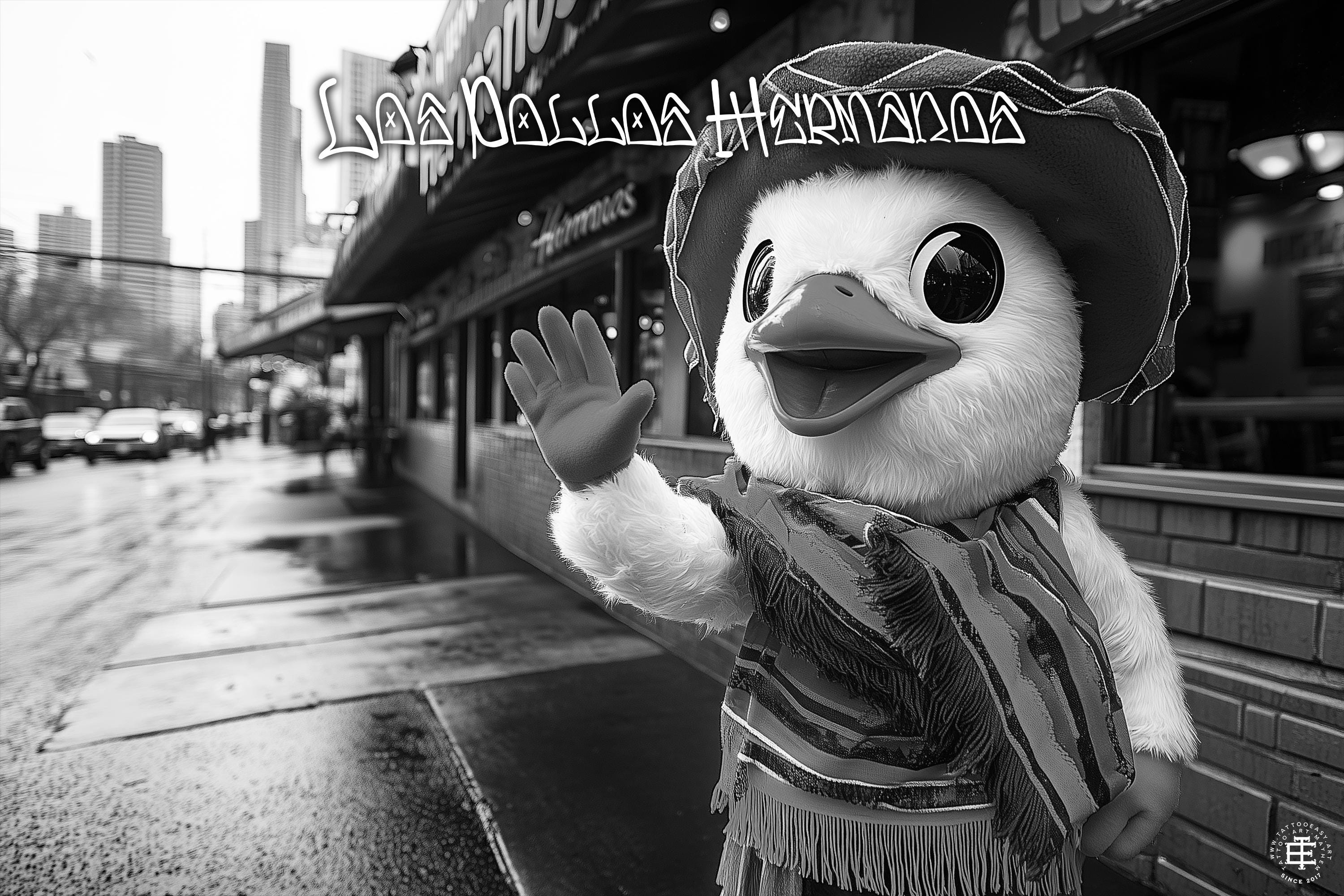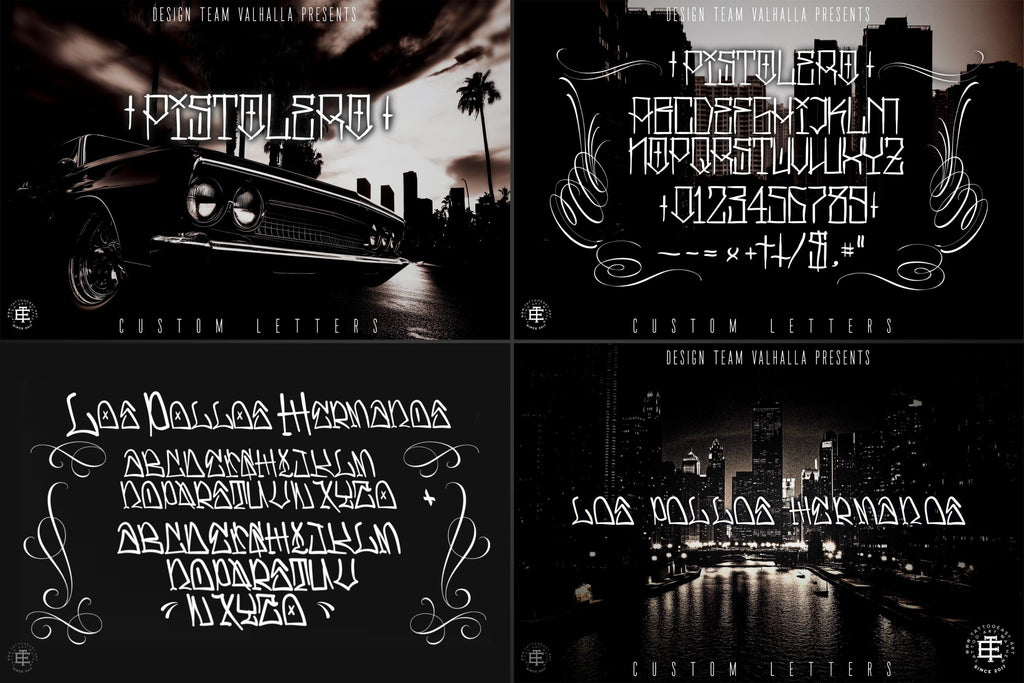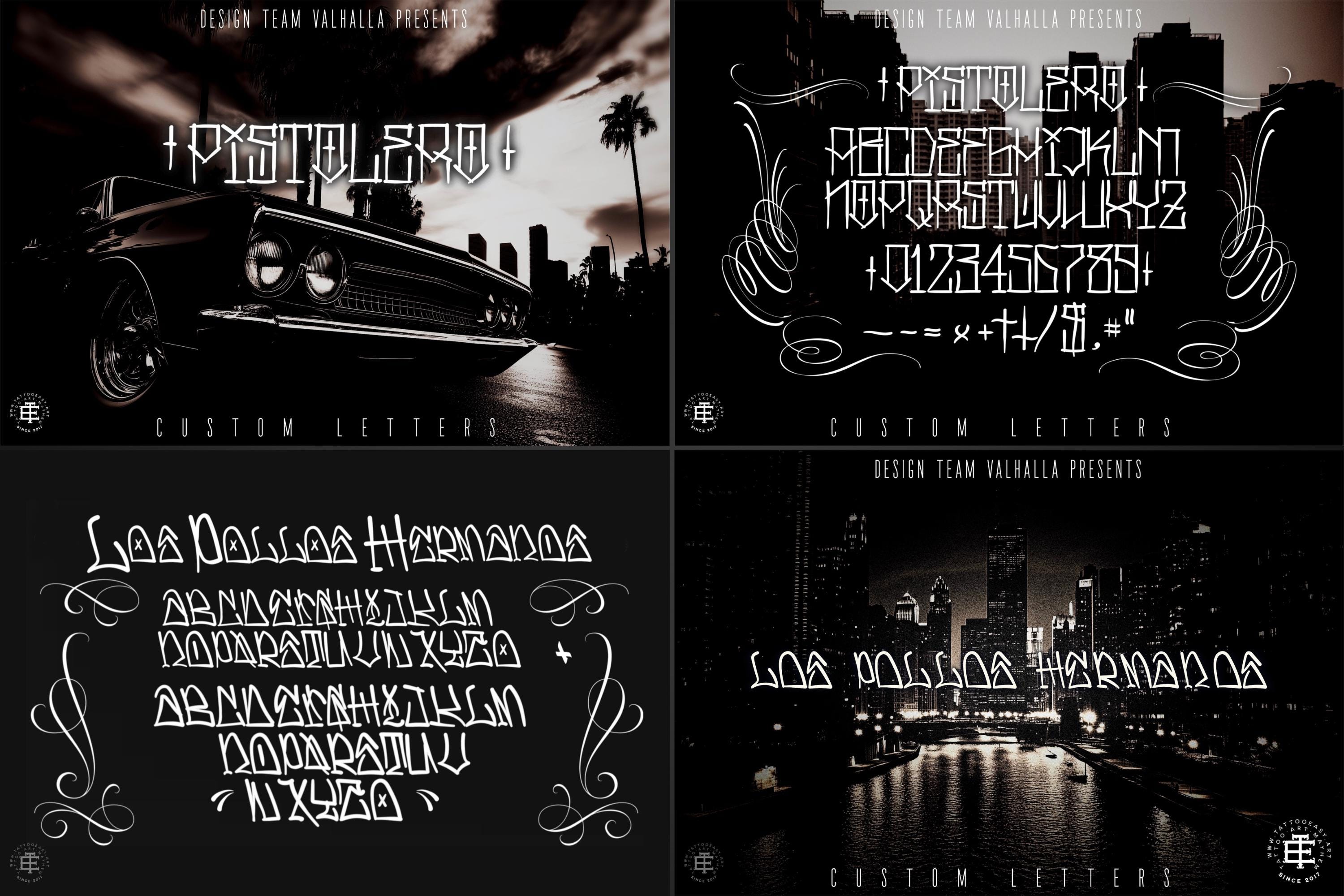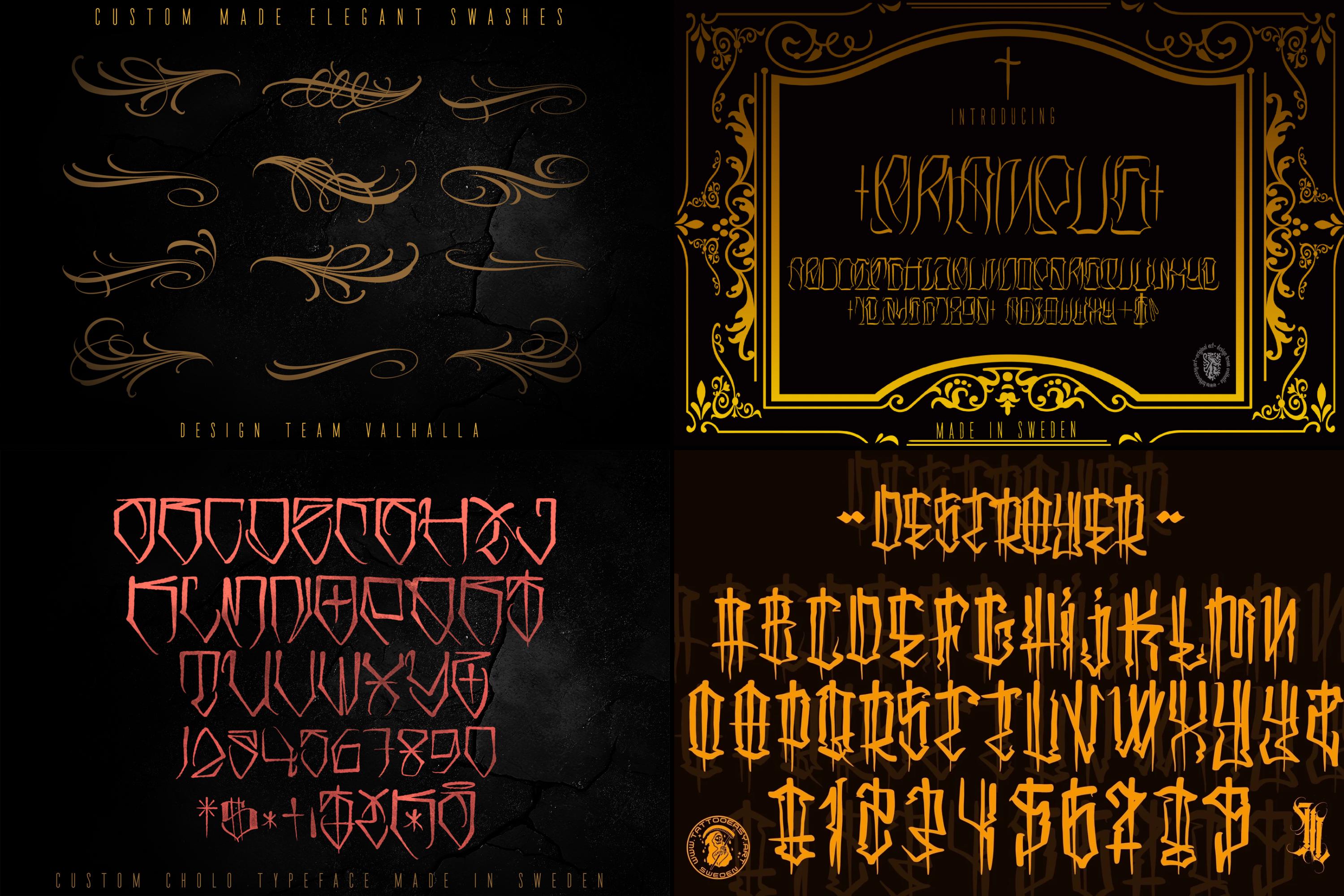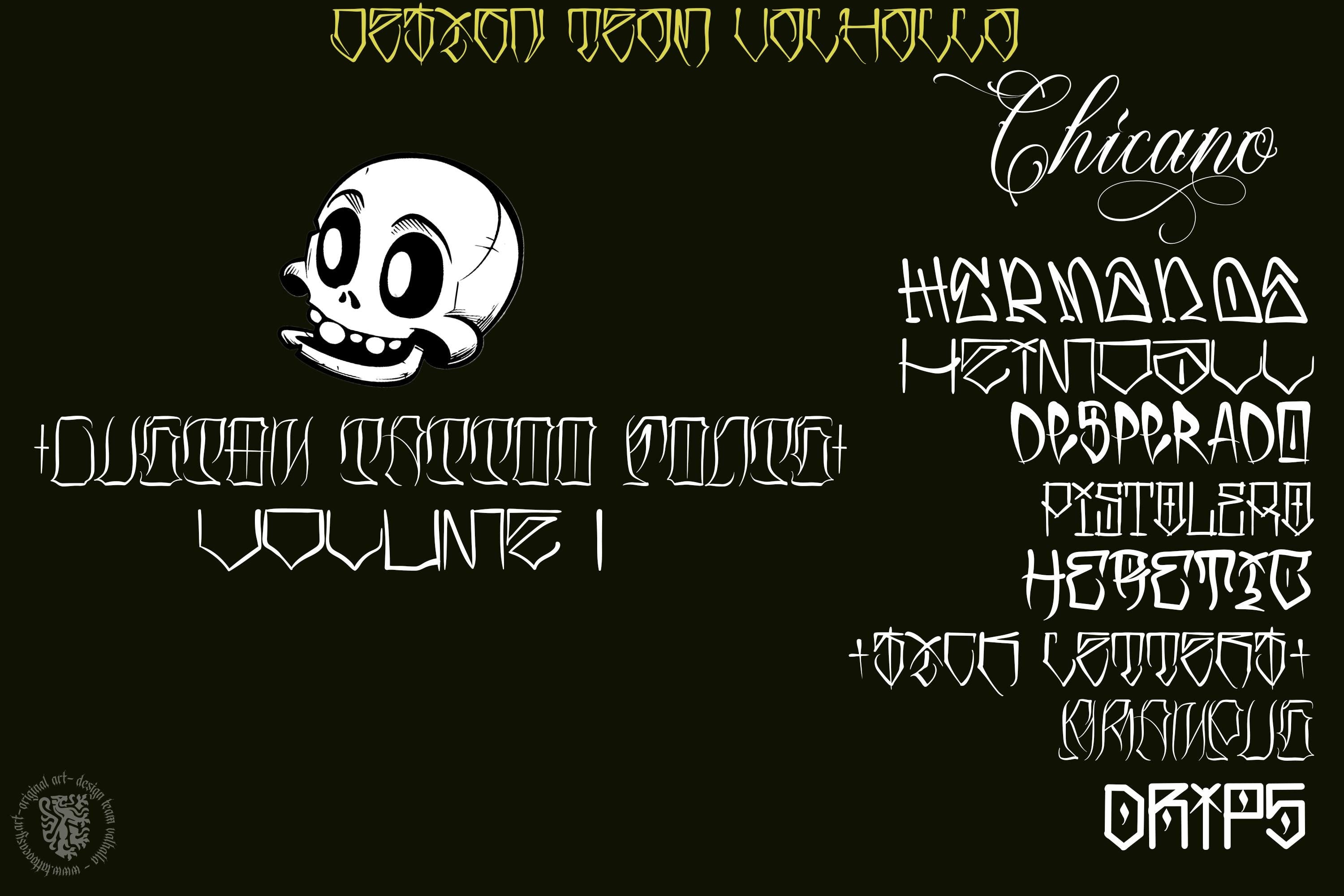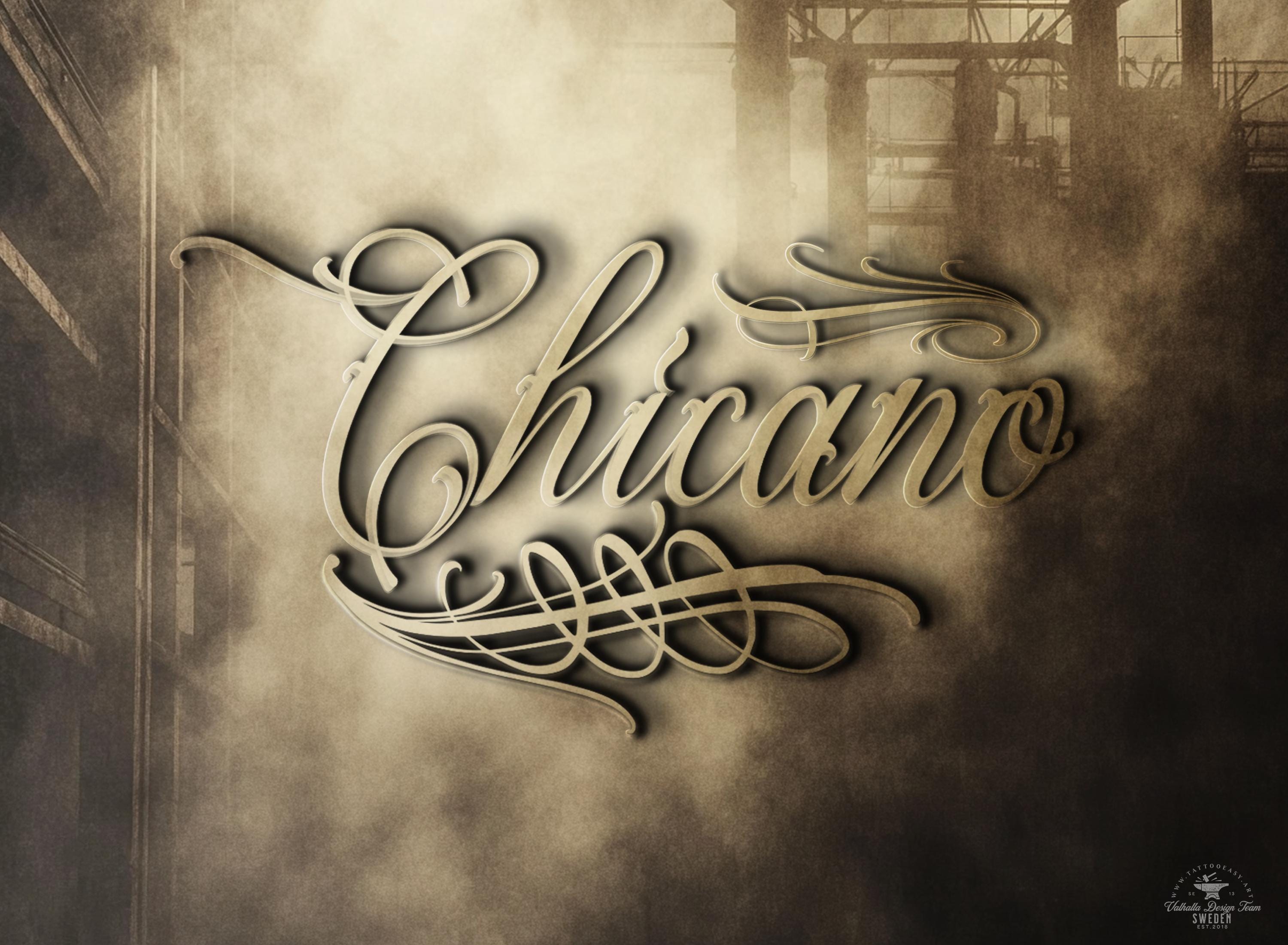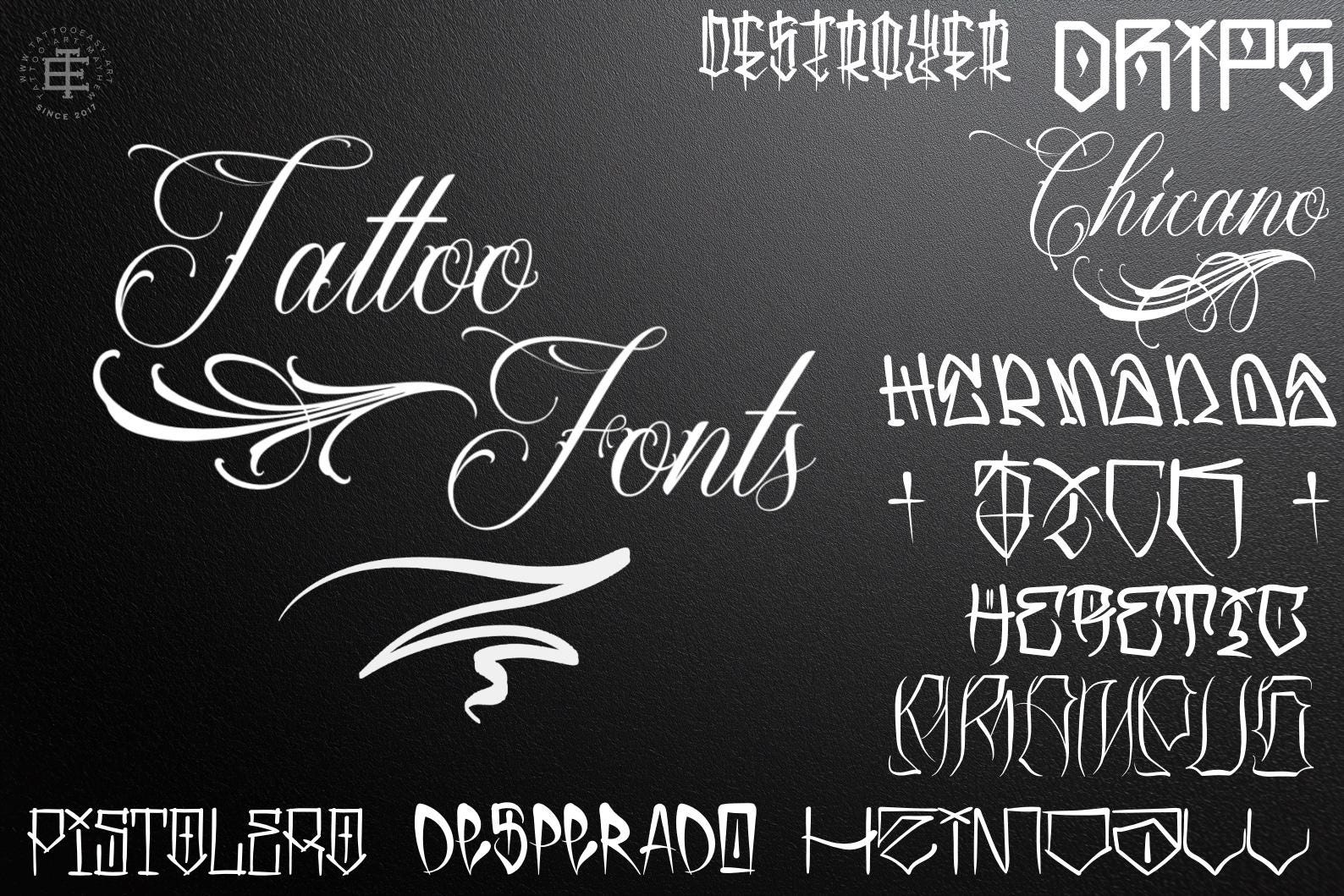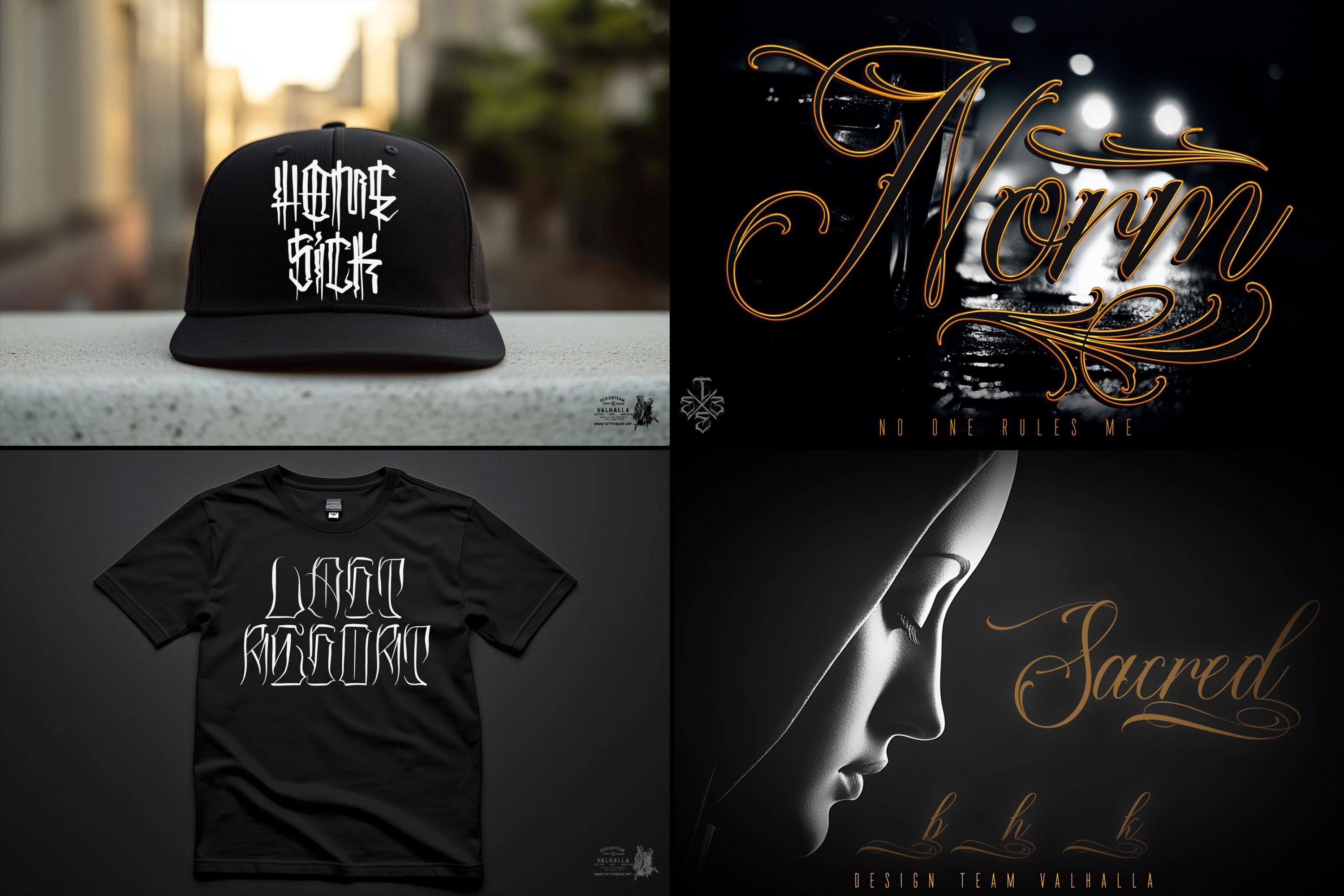
Tattoo font bundle, t-shirt / logo design, 10 Handmade fonts
Design Team Valhalla presents
10 Custom typefaces with lots of ligatures, alternative characters & vector extras!
Chicano Script
Chicano swashes
Hermanos
Hermanos-Bold
Desperado
Desperado-Bold
Destroyer
Sick - cholo
Pistolero
Pistolero Bold
Heretic
Heimdall
Krampus
Drips